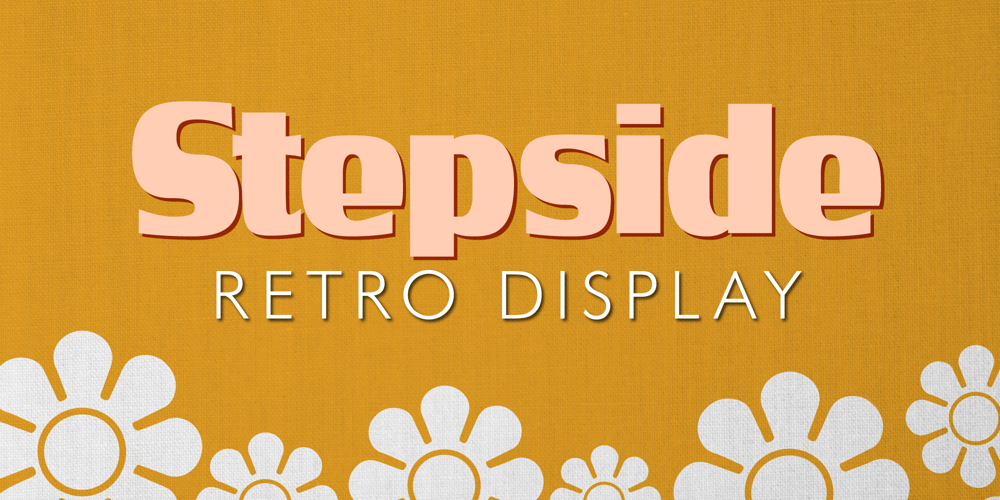
Stepside Font Family was designed by Sean Thorenson and published by Sean Thorenson. Stepside contains 2 styles and family package options. Stepside is a slick retro display face with plenty of horsepower. Stepside’s heavy-duty type chassis of sturdy uprights and bold strokes was modified with sweet retro details like graceful curves and tapered fins. Inspired by street rods, custom vans and power wagons, Stepside modestly hides its muscle like a true sleeper.Take Stepside for a spin on logos, posters and t-shirts for a more classic look. Need more speed? Step on the gas with Stepside Italic — perfect for type in need of emphasis.